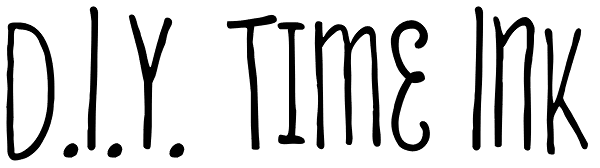
D.I.Y. Time
D.I.Y. Time is a hand drawn type system designed by Luciano and Coto inspired by the DIY philosophy which has been transformed into a whole global counterculture movement, identifying the new generations that reprice the handwork, paying attention...